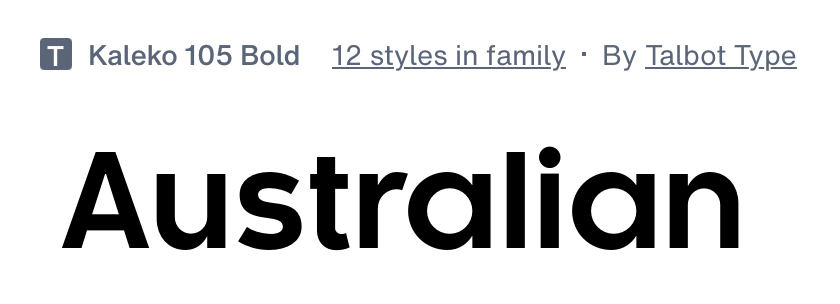
Its like it, but I need like the tiny bits, the t is a bit worn off from the top like Arial, and the r is straight not bending.
You know what, I’ll try using fontforge to edit it how i want it edited.
I Got Your Exact Font You Need.